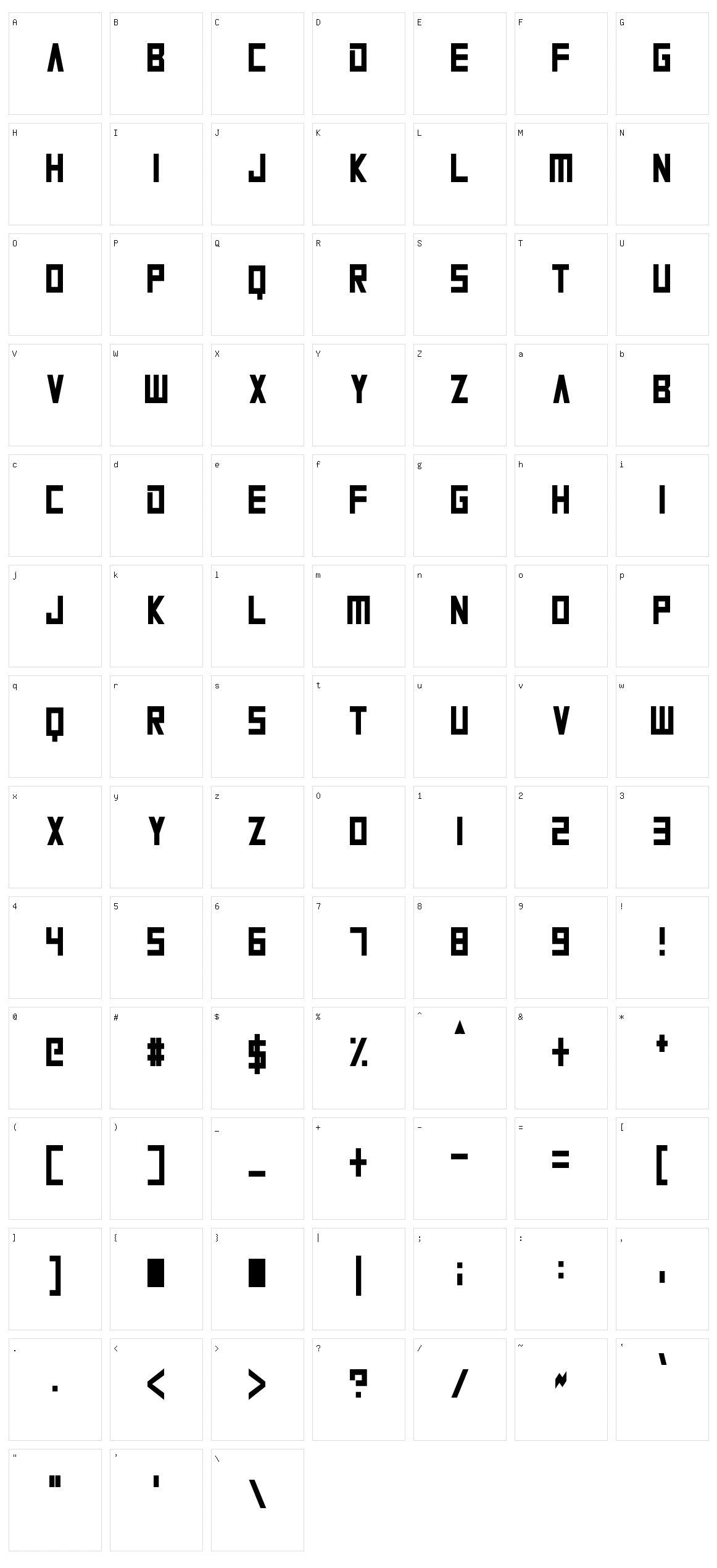
Alien Planet
Designed by: Hawtpixel
*Note: Font should be displayed using spaces for extra impact, like A L I E N P L A N E T
Alien Planet Character Set